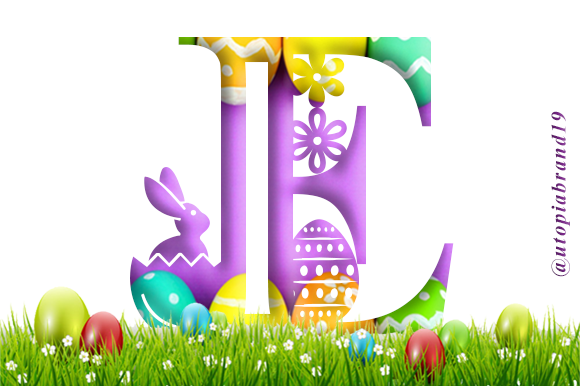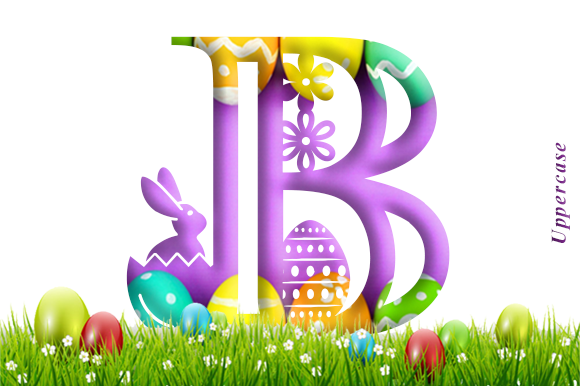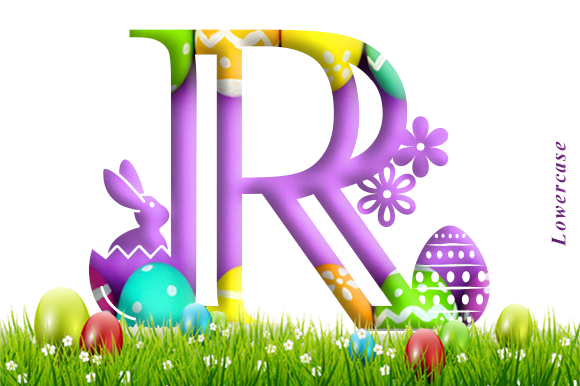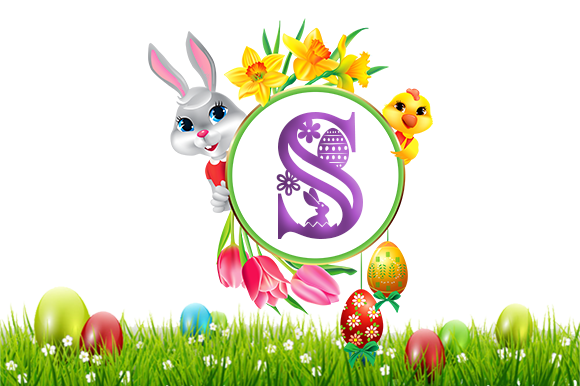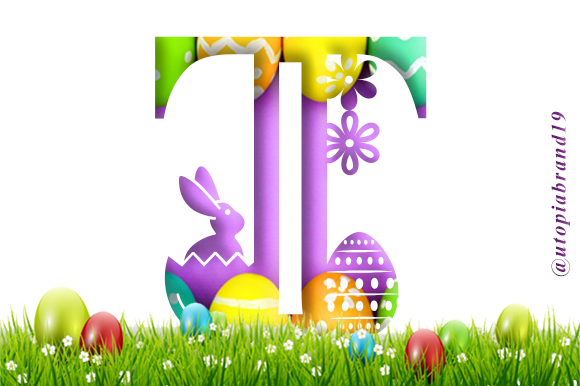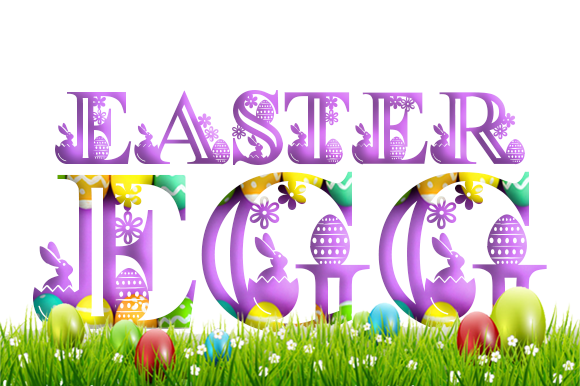
Easter Monogram Font: Add a Joyful Touch to Your Designs
Are you looking for a font that can bring a playful and joyful vibe to your designs? Look no further than the Easter Monogram Font! This adorable and quirky decorative font is perfect for designers and crafters who want to add a touch of whimsy to their work. In this article, we’ll explore the features and benefits of the Easter Monogram Font and show you how to use it to create beautiful stationery art, eye-catching social media posts, and more.
What is Easter Monogram Font?
Easter Monogram Font is a decorative font that is specifically designed to bring a playful and joyful touch to your designs. Its unique and quirky style makes it perfect for Easter-themed designs, but it’s also versatile enough to be used for other spring-inspired projects. The font features beautiful monogram letters with intricate details and a charming aesthetic that will make your designs stand out.
Key Features of Easter Monogram Font
- Playful and Quirky Style: The Easter Monogram Font has a unique and playful style that will add a joyful touch to your designs.
- Decorative Monogram Letters: The font features beautiful monogram letters with intricate details that will make your designs stand out.
- Versatile: The Easter Monogram Font is versatile enough to be used for a variety of design projects, from stationery art to social media posts.
- Easter-themed: The font is specifically designed for Easter-themed designs, but it’s also perfect for other spring-inspired projects.
How to Use Easter Monogram Font
The Easter Monogram Font is easy to use and can be incorporated into a variety of design projects. Here are some ideas to get you started:
- Stationery Art: Use the Easter Monogram Font to create beautiful stationery art, including greeting cards, invitations, and gift tags.
- Social Media Posts: Add a playful touch to your social media posts with the Easter Monogram Font. Use it to create eye-catching graphics and announcements.
- Digital Papers: Use the Easter Monogram Font to create digital papers that can be used for scrapbooking, card making, and other paper crafting projects.
- Logo Design: The Easter Monogram Font can also be used for logo design. Create a custom logo for your business or brand with a playful and quirky touch.
Tips and Tricks for Using Easter Monogram Font
Here are some tips and tricks for using the Easter Monogram Font:
- Experiment with Colors: The Easter Monogram Font looks great in a variety of colors. Experiment with different color combinations to find the perfect one for your design.
- Mix and Match: Don’t be afraid to mix and match the Easter Monogram Font with other fonts. This will add visual interest to your design and make it more dynamic.
- Use it for Headings: The Easter Monogram Font is perfect for headings and titles. Use it to add a playful touch to your design and draw attention to important information.
The Easter Monogram Font is a beautiful and versatile decorative font that can add a playful and joyful touch to your designs. With its unique and quirky style, it’s perfect for Easter-themed designs, but it’s also versatile enough to be used for other spring-inspired projects. Whether you’re a designer or crafter, the Easter Monogram Font is a great addition to your font collection. So why not give it a try and see how it can enhance your designs?